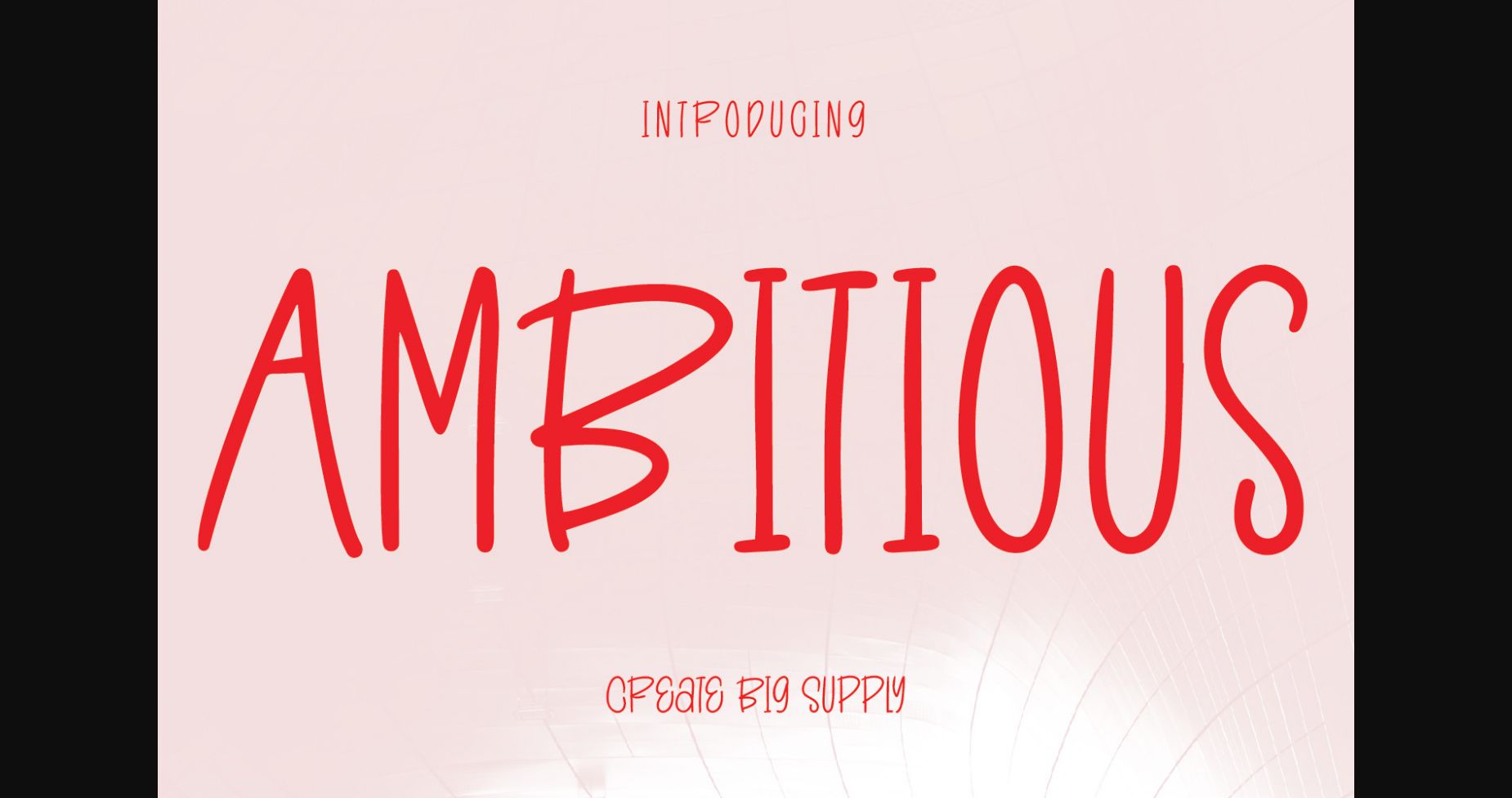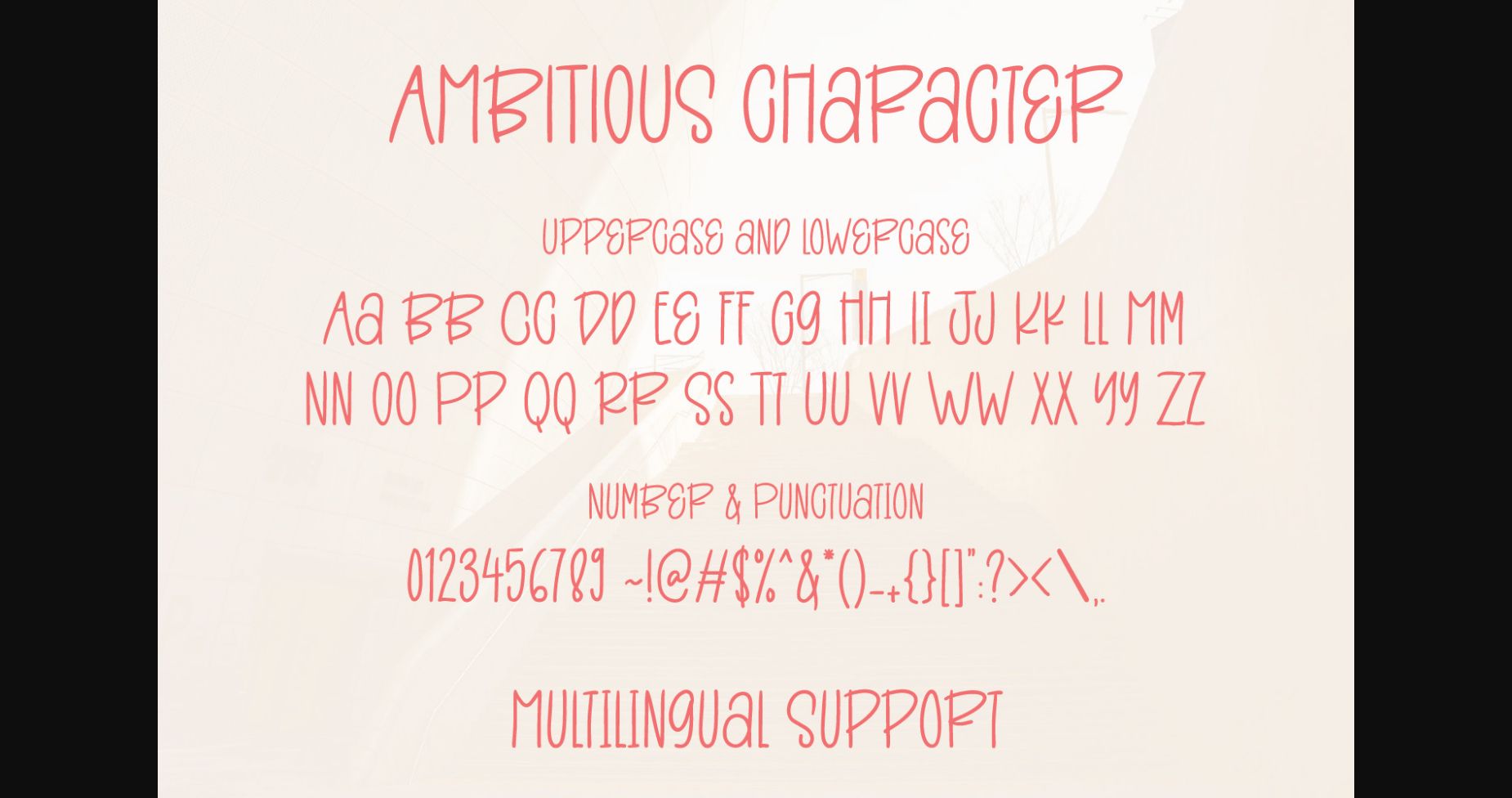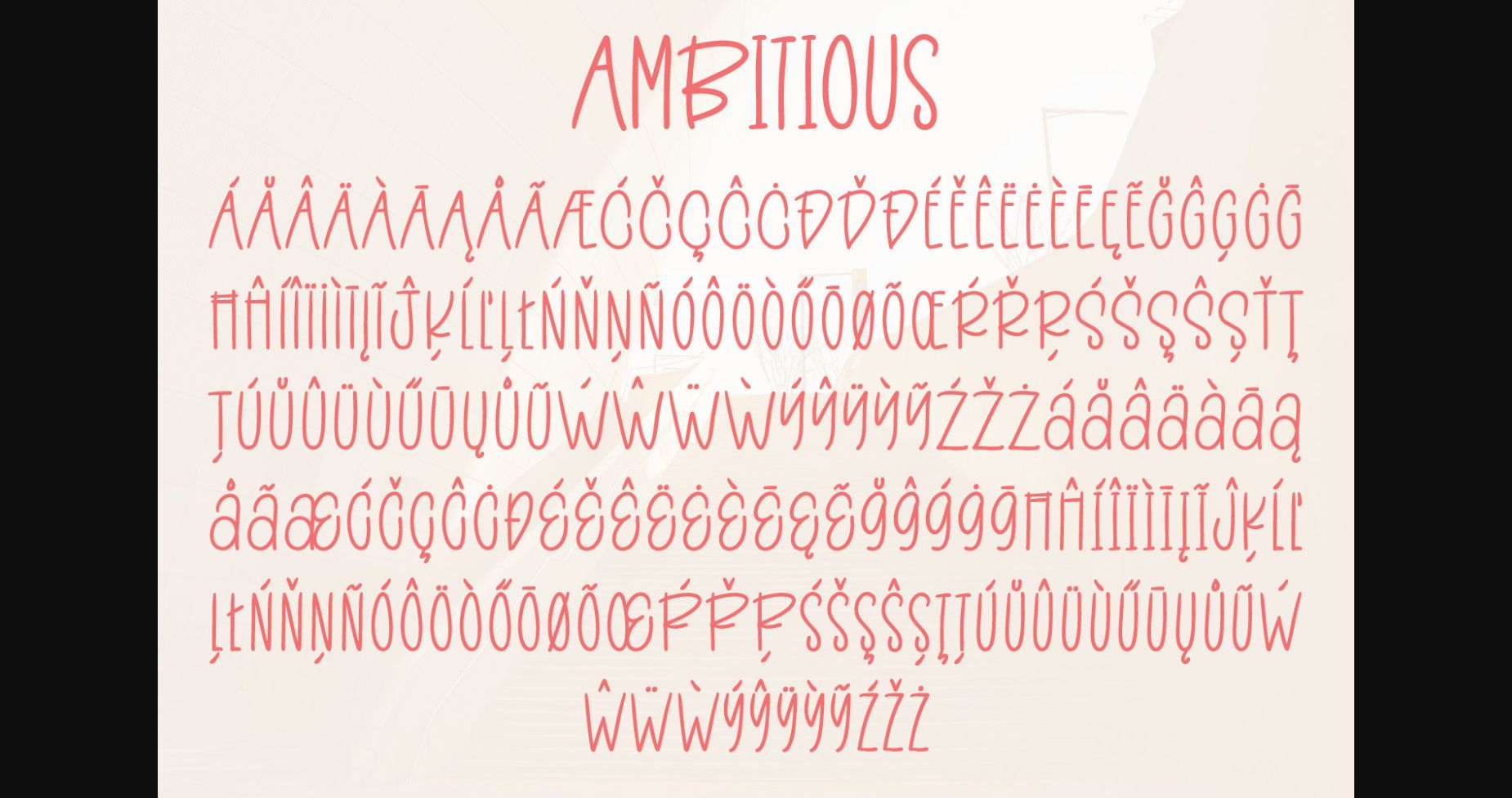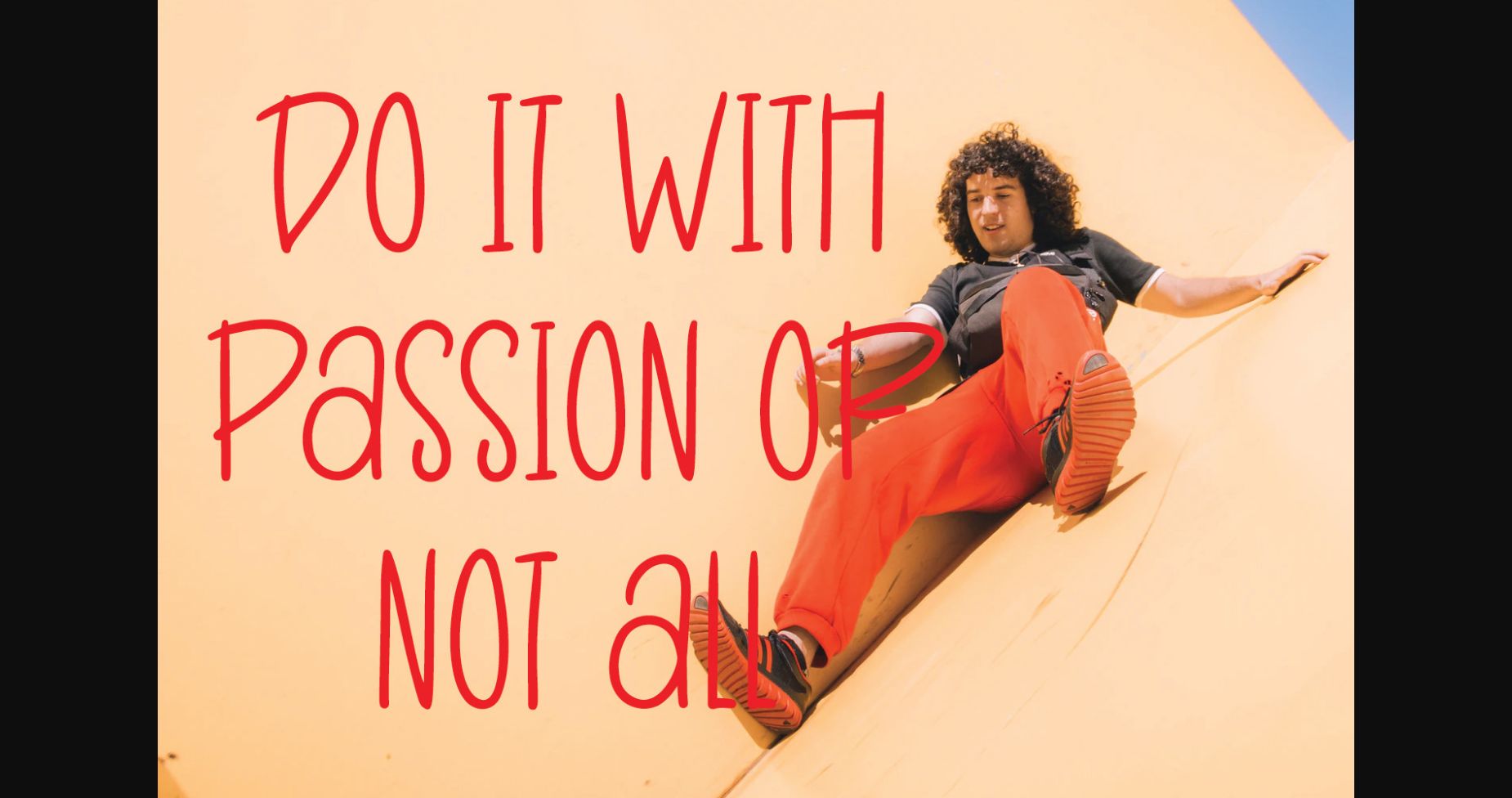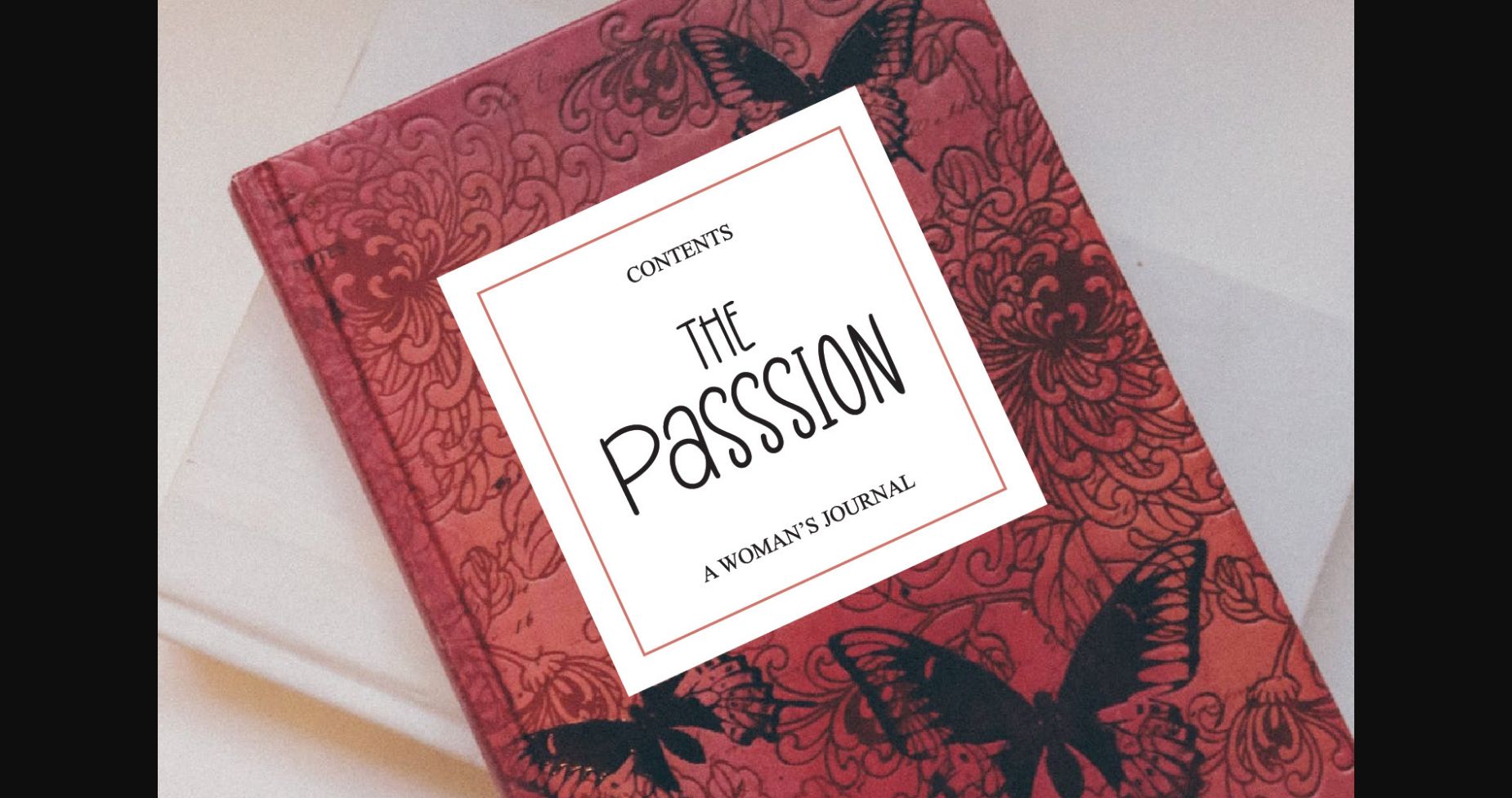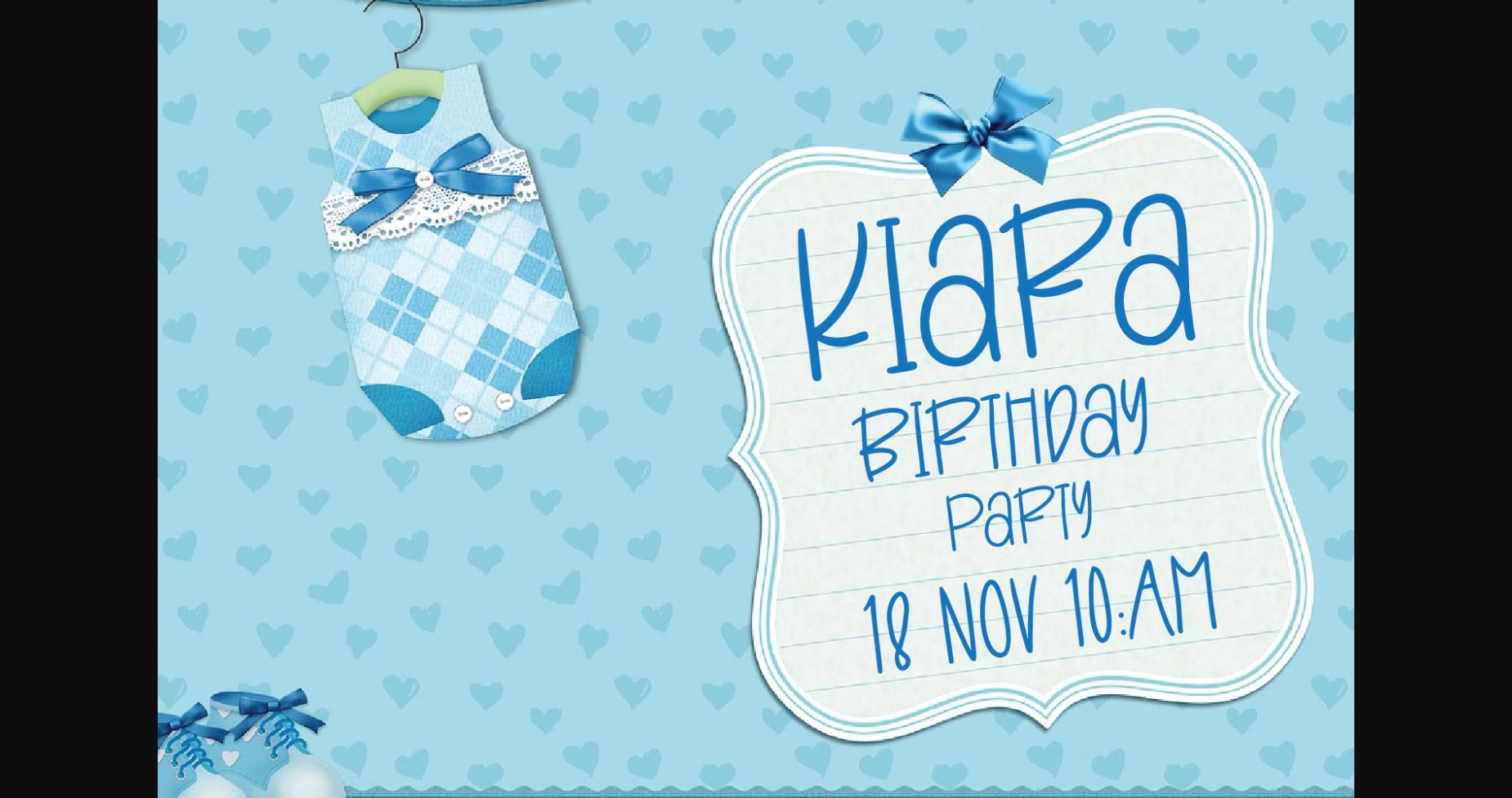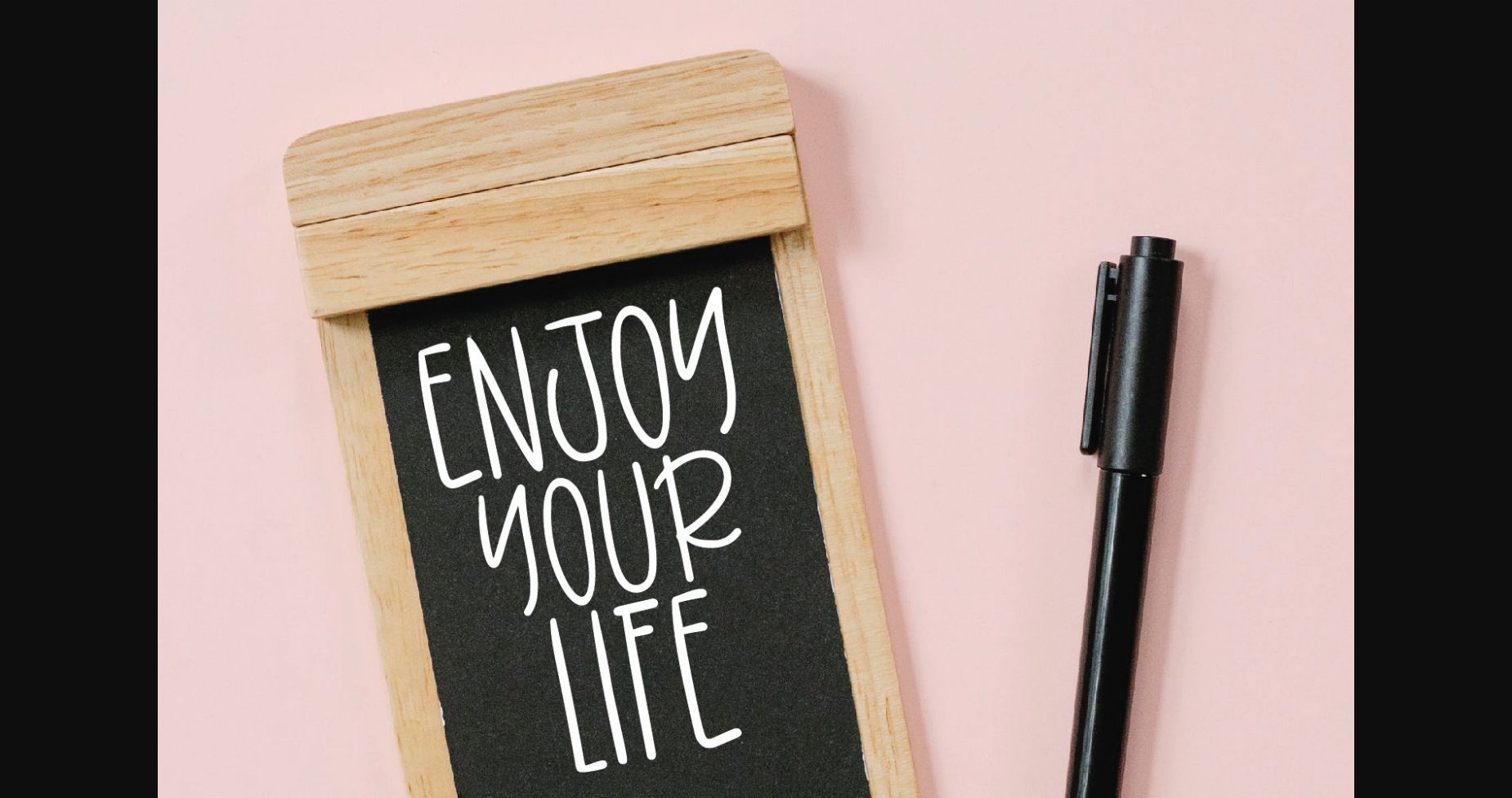
Ambitious Font
About Ambitious Font
Ambitious is a thin lettered, quirky and adaptable sans serif font. It can easily be matched to an incredibly large set of projects, so add it to your creative ideas and notice how it makes them stand out!